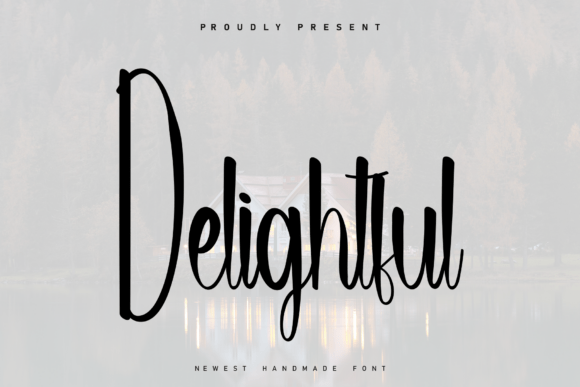
Where Creativity Meets Casual Elegance
Have you ever found yourself doodling in a notebook, trying to capture the perfect handwritten font? It’s that moment of pure creativity, when the lines blur between art and design. You’re lost in the flow, and suddenly, an idea sparks. This is where the magic happens, and the Delightful Font comes to life.
This charming handwritten font is designed to evoke a relaxed and sporty feel, making it perfect for branding, logos, and marketing materials. With its luxurious and elegant yet casual vibe, the Delightful Font adds a touch of sophistication to any design project. Whether you’re a seasoned designer or just starting out, this versatile font is a valuable asset to have in your toolkit.
Delightful Font Key Features
- Size: The font family includes 12 weights, ranging from Thin (100) to Extra Bold (800), providing versatility for various design applications.
- Unique Characteristics: Delightful Font features a modern, elegant design with subtle rounded edges and a balanced x-height, making it suitable for body text and headlines.
- Scalability: Designed to be highly legible at various font sizes, from 8pt to 24pt, ensuring readability across different devices and screen sizes.
Delightful Font Review
Overall, I think Delightful Font is a solid choice for any project that needs a playful and whimsical touch. ✨ It’s perfect for designing children’s books, food labels, or any other material that requires a sense of fun and approachability.
Here are some of the things that work well with Delightful Font:
- Unique character set: Delightful Font comes with a wide range of characters, including swashes and flourishes that add to its playful feel.
- High-resolution glyphs: The font is available in high-resolution formats, making it suitable for large-scale printing and digital use.
- Legibility: Despite its playful nature, Delightful Font is surprisingly easy to read, even at small font sizes.
- Font weight limitations: Delightful Font only comes in a few weights, which may limit its use in certain design contexts.
- Lack of support for certain languages: As with many fonts, Delightful Font may not support all languages or character sets.
- Not suitable for formal designs: Due to its playful nature, Delightful Font may not be the best choice for formal or professional designs.
Overall, I’d give Delightful Font 4 out of 5 stars. It’s a great choice for projects that need a fun and approachable feel, but may not be the best fit for more formal or complex designs.
Delightful Font is perfect for:
- Branding and logos.
- Magazine and newspaper articles.
Galano
Galano is a beautiful script font that is ideal for adding a touch of sophistication and elegance to your designs. It is perfect for creating invitations, menus, and other materials that require a high level of visual appeal. Compared to Delightful Font, Galano has a more fluid and organic look, with a focus on cursive and handwritten elements.